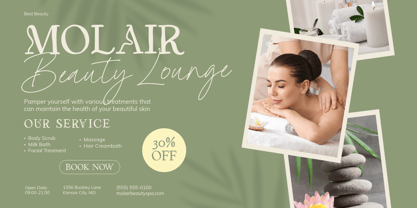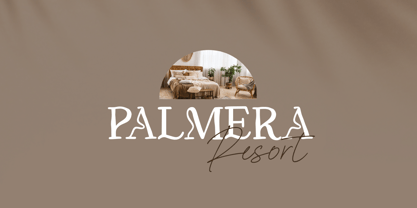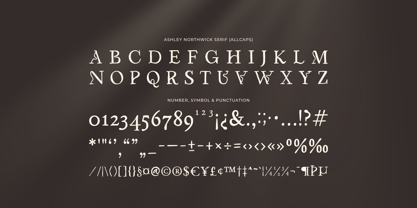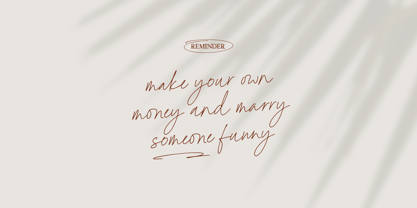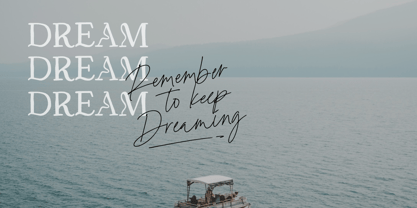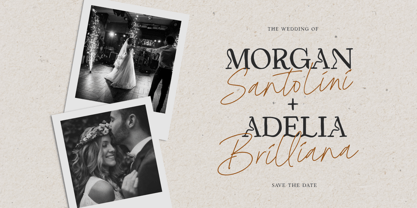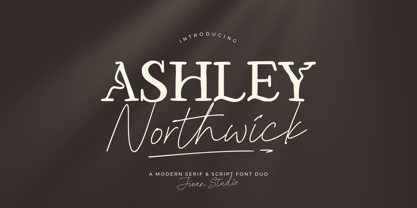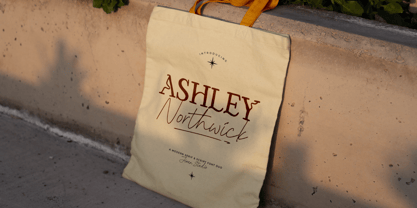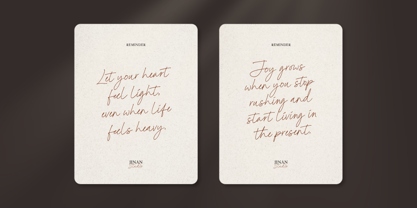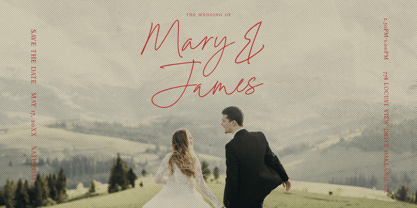
Ashley Northwick
by Jinan Studio
The Ashley Northwick Font Family was designed by Andi Syahdang, Ainun Jinan and published by Jinan Studio. Ashley Northwick contains 2 styles and family package options. More about this family
Ashley Northwick is a modern and elegant serif & script font duo designed to bring sophistication and personality into your designs. The serif typeface delivers a clean, stylish, and professional presence, while the handwritten script adds a natural, flowing touch that feels warm and expressive. Perfectly paired, this font duo is ideal for branding, logos, wedding invitations, packaging, social media graphics, editorial layouts, and quote designs. Ashley Northwick helps you create timeless, high-end visuals with effortless harmony between classic and modern styles. Whether you’re designing for luxury brands, personal projects, or creative businesses, this font duo offers versatility, elegance, and strong visual impact in every composition. Features A set of uppercase and lowercase glyphs (allcaps sans version) Number, symbol, and punctuation Multilingual Support Ligatures & Swash PUA Encoded Type j_1 until j_7 to features swash, ligatures will automatically replace the standard letter pairs whenever available
Designers: Andi Syahdang, Ainun Jinan
Foundry: Jinan Studio